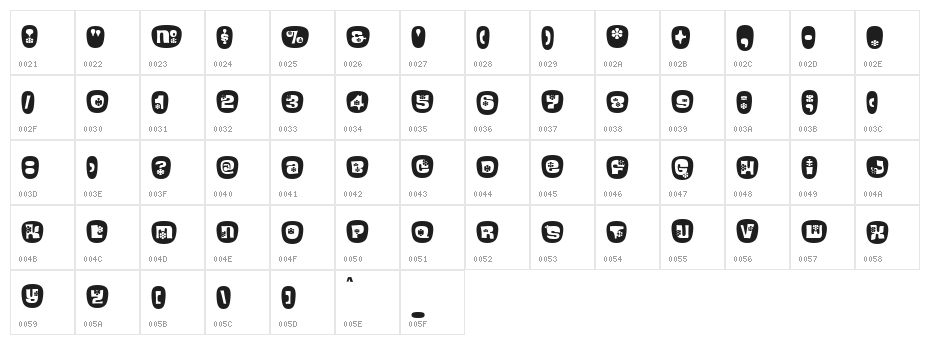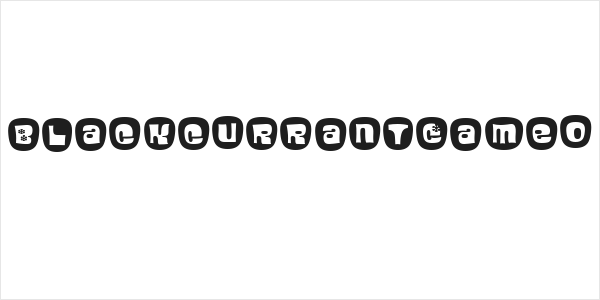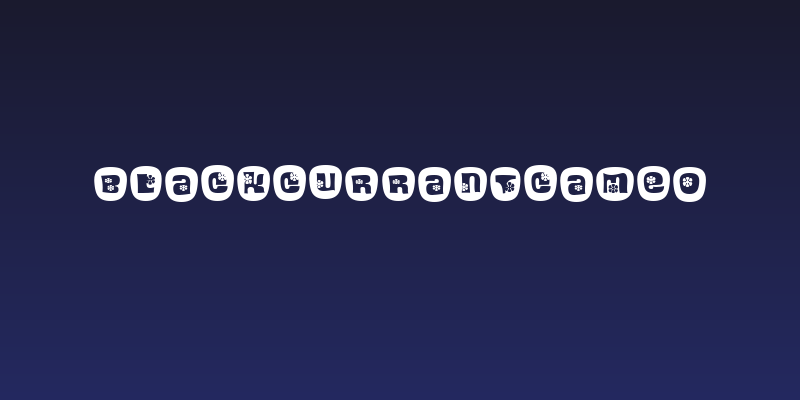
BlackcurrantCameo Font
BlackcurrantCameo Description
This playful and decorative font features bold, rounded characters enclosed in irregular, pebble-like shapes. Each letter and number is adorned with whimsical floral motifs, adding a touch of nature-inspired charm. The font's unique style is characterized by its thick strokes and high contrast between the filled and unfilled areas, creating a visually striking appearance. The overall design is both fun and eye-catching, making it suitable for creative and informal projects. The characters are evenly spaced, ensuring readability while maintaining their distinctive look.
| Proposed Projects | Ideal for children's books, greeting cards, playful branding, and creative posters. |